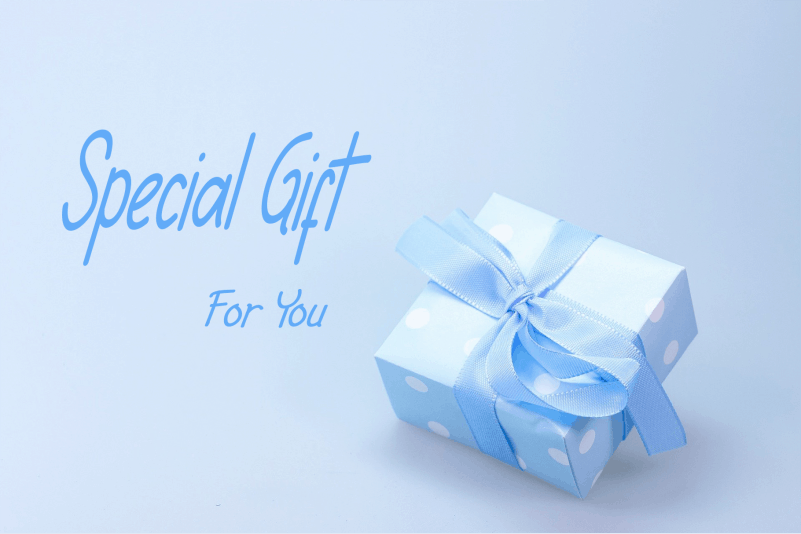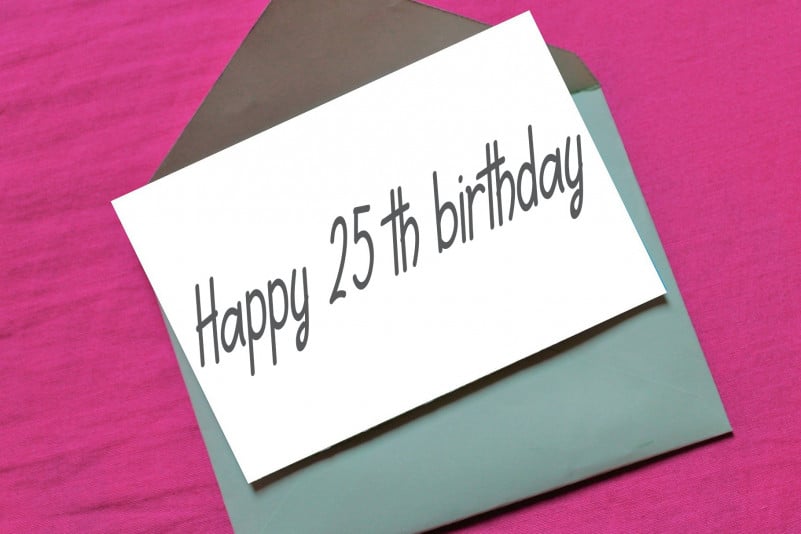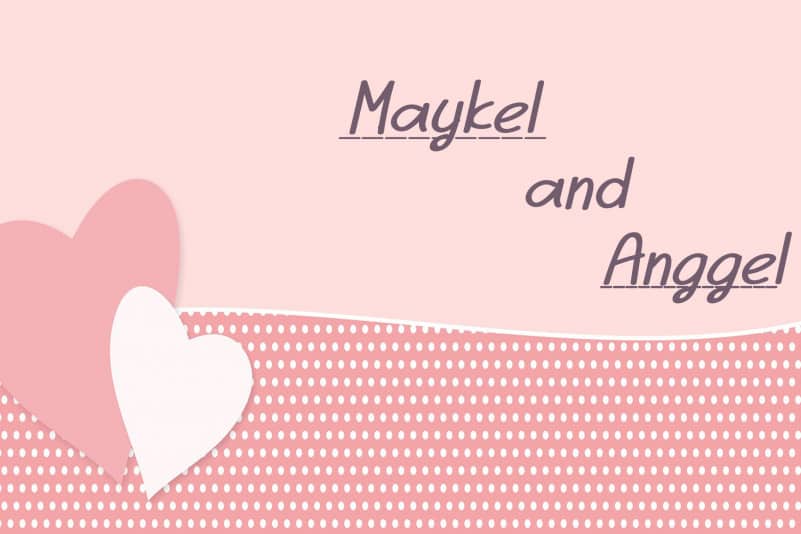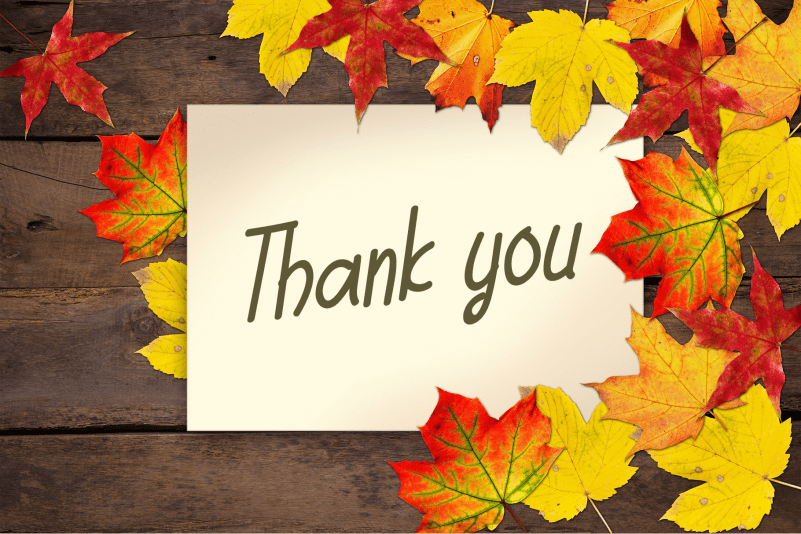
Birthday Candle Display Font
Birthday Candle Display Font is a simple and adaptable handwritten font. It has beautiful and well balanced characters and as a result, it matches a wide pool of designs. Fall in love with its incredibly versatile style and use it to create spectacular designs!